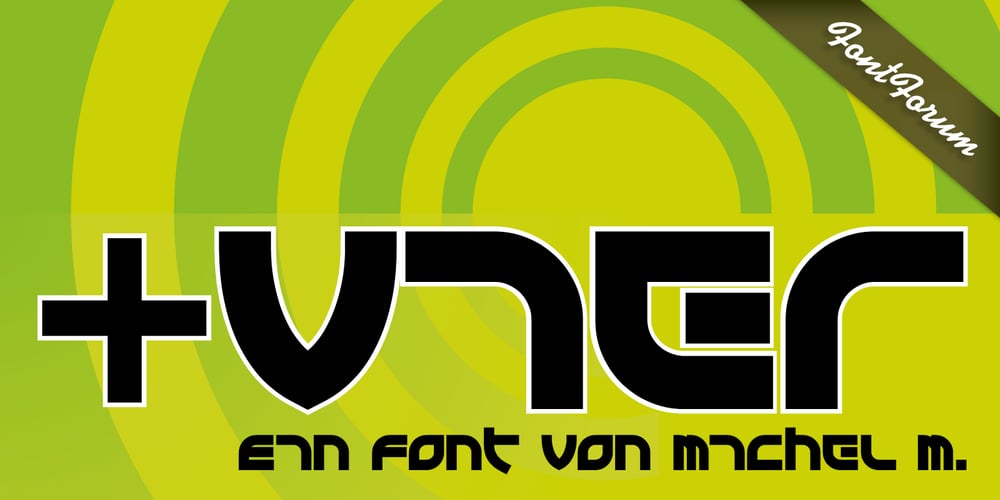
und4
und4 font
und4 Font Family was designed by Michel M. and published by URW Type Foundry. und4 contains 1 styles and family package options. The rasterized square (clear, therefore 4 as part of the font name) was the constructive basis. The intention was to put all characters within this grid and produce a highly structured, yet lively, resting in itself, display font. Relaxed but exciting, just. An absolutely noteworthy detail are the classical construction principles (based on a typography book from the 50’s for poster designers), the so-called optical weighting, derived and slightly exaggerated character elements: The characters are not purely symmetrical and the curve shapes do not close justified with the surrounding square. Loops and tongues slightly hang over; the upper bows are slightly less protruding than lower ones, etc. The kerning is tuned to fit these design details: the white space between the characters match the same filling space.